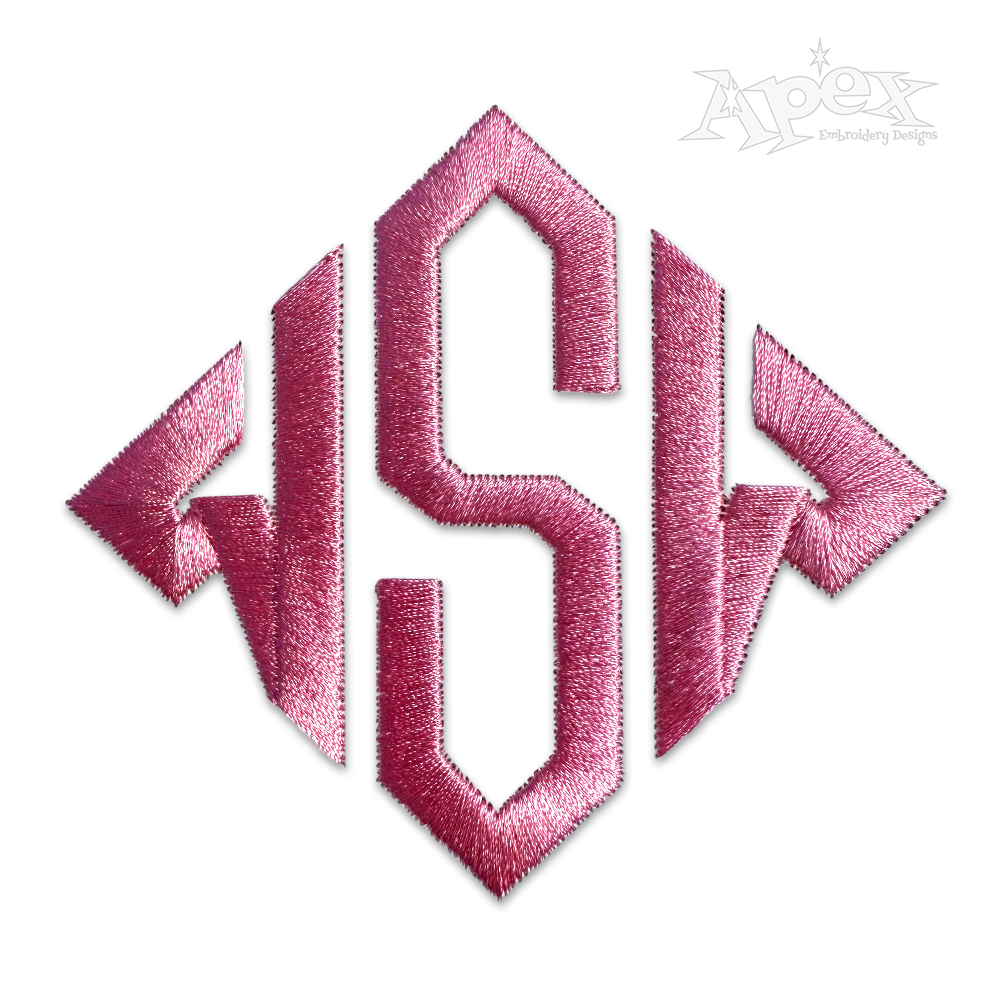
Diamond Master Embroidery Font
Born from an appreciation for mid-century estate jewelry and classic bespoke tailoring, the Diamond Master Embroidery Font brings architectural precision to the world of custom monogramming. When digitizing this collection, we envisioned the crisp, faceted silhouette of an emerald-cut stone translated through thread—where sharp diagonal corners meet rich, radiant satin columns. The result is an enduring monogram alphabet that feels both authentically vintage and distinctly modern, infusing personalized gifts and textiles with unmistakable presence and poise.
Project Ideas for Diamond Master Embroidery Font
The structured lozenge shape of a classic diamond monogram creates an instantly recognizable focal point across a variety of fabrics:
- Luxury Table Linens: Stitch crisp 3-letter monograms in tone-on-tone silky rayon onto pure Belgian linen dinner napkins and runners for a bespoke entertaining suite.
- Bespoke Resort Wear: Adorn linen camp shirts, structured cover-ups, and sun hats with bold geometric monograms that capture the spirit of coastal retreats.
- Heirloom Bedding: Elevate sateen duvet shams, boudoir pillows, and cotton percale sheets with regal center monograms that maintain crisp definition wash after wash.
- Bridal & Groom Gifting: Personalize silk dressing robes, cosmetic cases, and velvet travel pouches for unforgettable wedding party keepsakes.
- Heavyweight Canvas Totes: Add an elite, nautical-inspired monogram to structured carryalls, weekenders, and tennis bags.
Proper placement ensures the bold geometry of the diamond silhouette complements the natural drape of your garments and linens:
- Corner Diagonal: For linen cocktail and dinner napkins, orient the apex of the diamond toward the mitered corner, placed 1.5 to 2 inches from the hemline for effortless folding displays.
- Center Chest & Pocket Crest: On polo shirts, bathrobes, or jackets, center the 2-inch design directly over the left chest pocket area or aligned with the placket midpoint.
- Bedding Centers: When centering upon standard or king shams, position the 3-inch monogram exactly in the horizontal and vertical center, or two-thirds up from the bottom edge on decorative accent pillows.
- Cuff Accents: Use a single outer or central initial from the smaller size positioned cleanly one inch above the cuff edge of tailored shirting.
Diamond Master Embroidery Font Craft & Letterform Details
Digitizing a diamond monogram requires far more than simply slanting letters—it demands mathematical rhythm and nuanced needle direction. The left, center, and right letterforms have been custom-contoured so that when assembled in the traditional three-letter arrangement, their outer boundaries lock into an immaculate, balanced diamond silhouette. Every column is underpinned with a stabilizing lattice underlay to prevent fabric shift, allowing the top satin stitch alphabet to glide effortlessly across the surface with mirror-like luster. Corners are thoughtfully beveled to eliminate bulky thread pile-ups, ensuring your machine glides through every sharp angle with whisper-quiet, artisan precision.